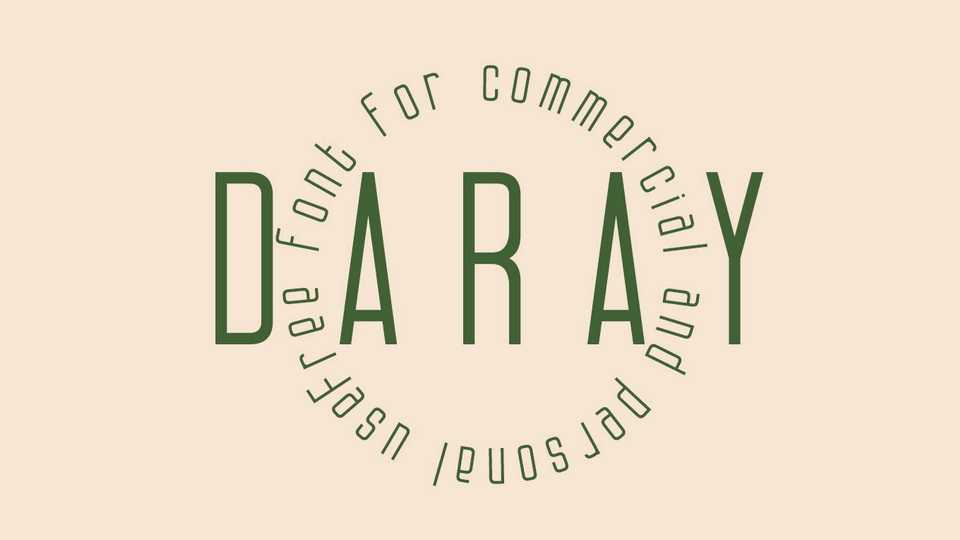
Download Daray font, a simple condensed sans serif typeface with right angles and smooth curves. Daray is not perfect for any project.
Designer: Maxim Raikov